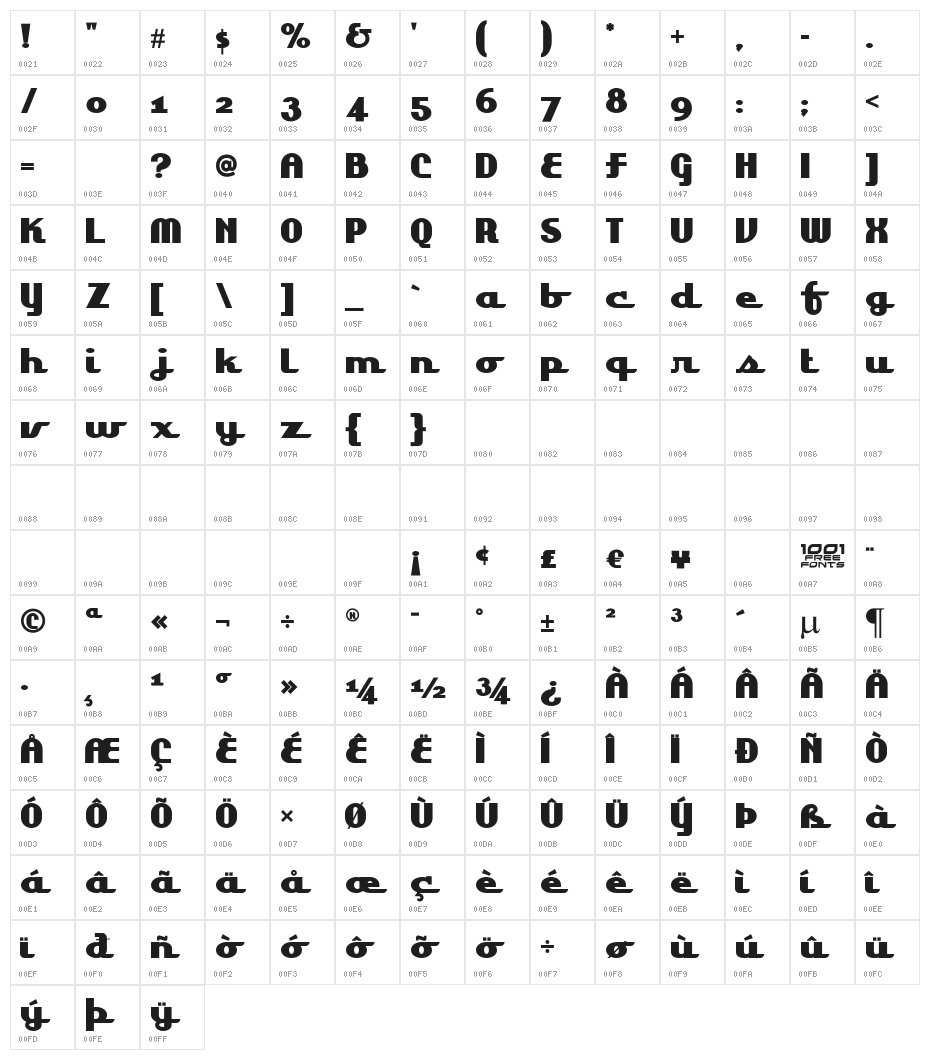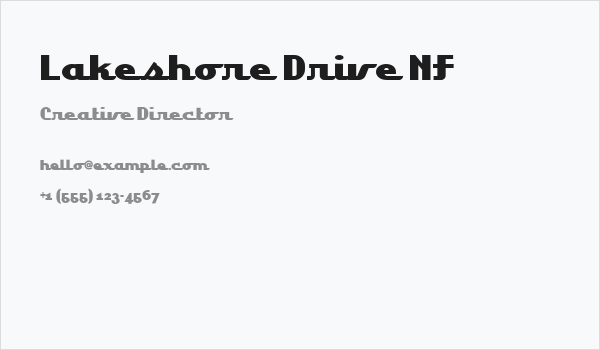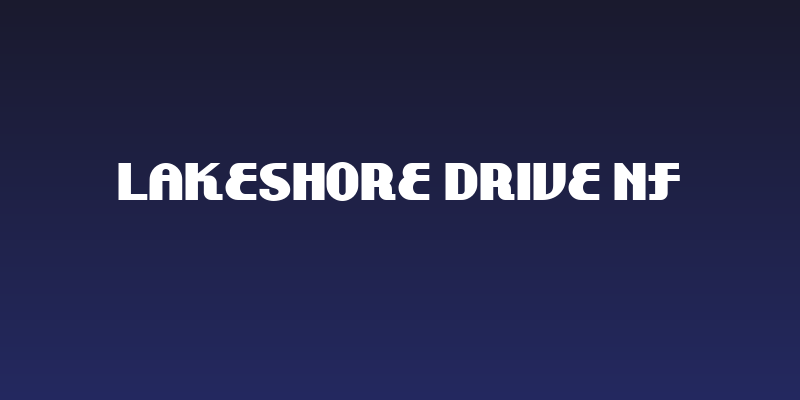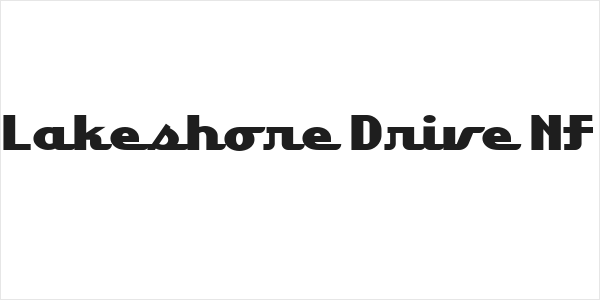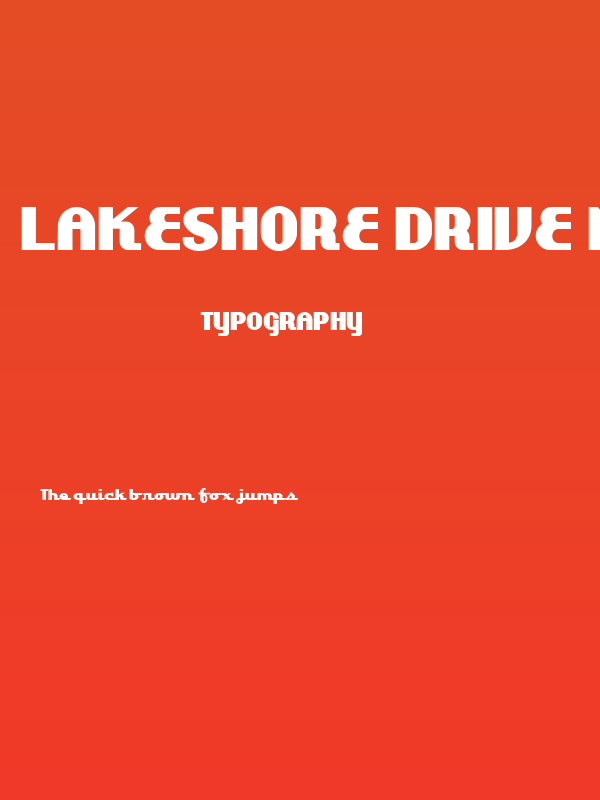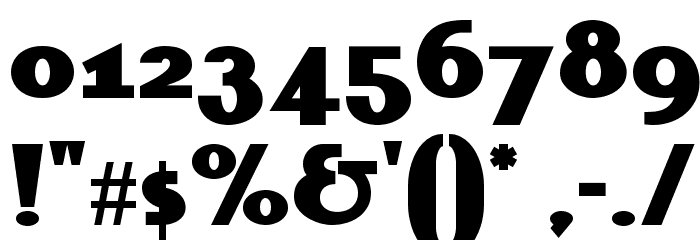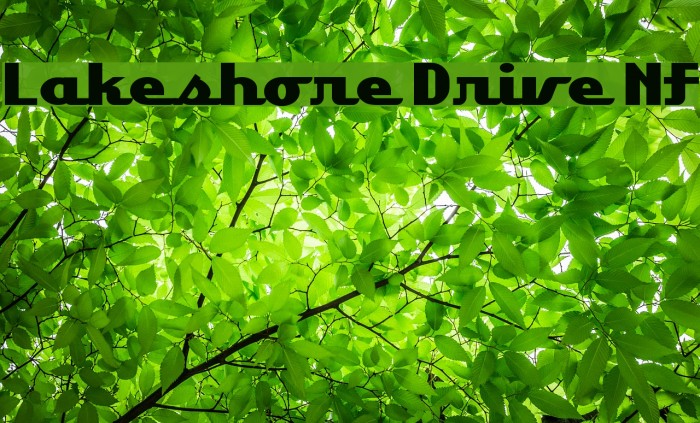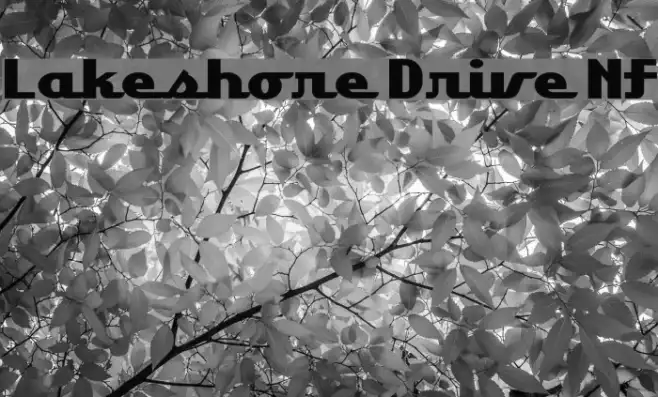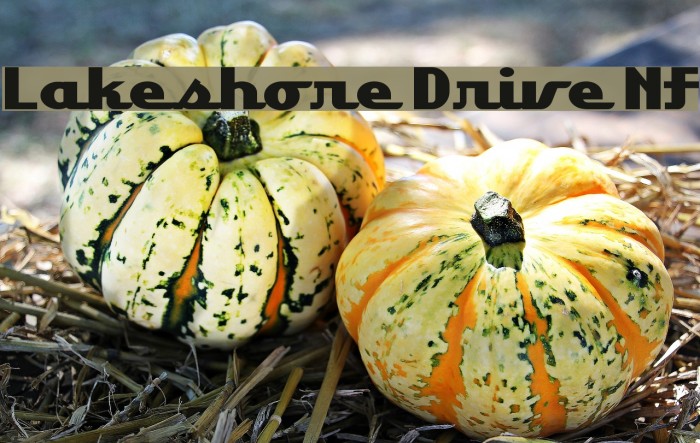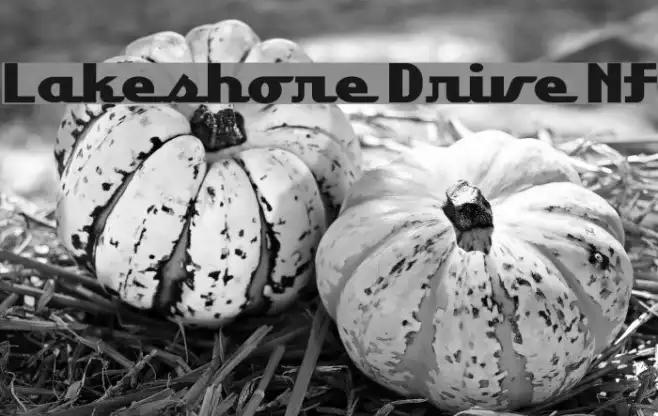
Lakeshore Drive NF Font
Lakeshore Drive NF Description
This font features a bold and striking design with a strong geometric influence. The uppercase letters are characterized by their thick, block-like forms, while the lowercase letters maintain a consistent weight, offering a harmonious balance. The numerals are equally bold, ensuring visibility and impact. Special characters are designed with the same boldness, making them stand out. The overall style is reminiscent of vintage signage, with a modern twist that makes it suitable for a variety of contemporary applications.
Fonts by Nick Curtis - www.nicksfonts.com
| Overall Style | Vintage, Modern |
| Proposed Projects | Ideal for branding, poster design, headlines, and any project requiring a strong visual impact. |